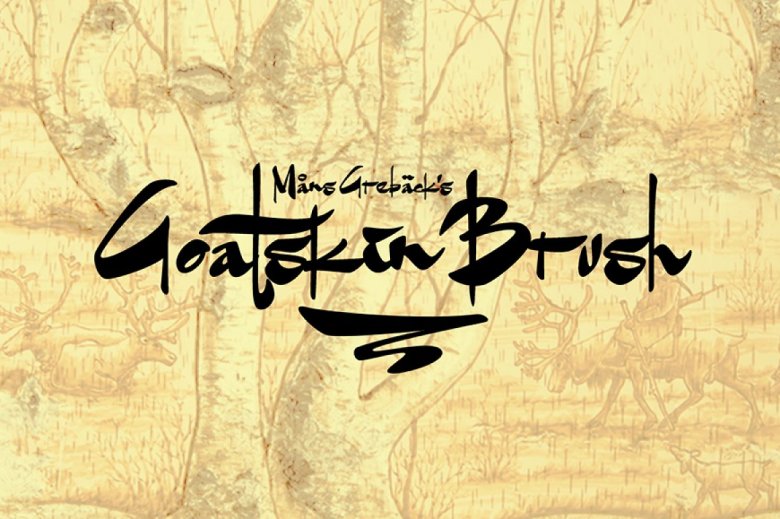
Goatskin Brush Font
Goatskin Brush Font High quality script font with multilingual support and a large number of special characters. Designed by Måns Grebäck, this hand-crafted typeface works great in logotypes and for titles and slogans.